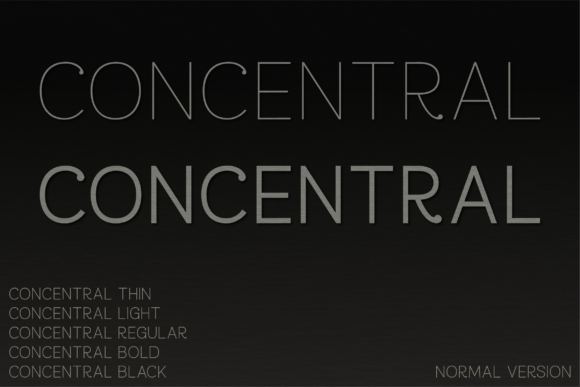
Discovering the Perfect Harmony: Concentral Font
Have you ever stared at a blank page, trying to conjure up the perfect font to match your creative vision? The struggle is real, but what if we told you that there’s a font that effortlessly blends elegance and simplicity, elevating your designs to new heights? Welcome to the world of the Concentral Font, a masterfully crafted sans serif ensemble that’s poised to revolutionize the way you approach typography.
Represented in five unique weights, the Concentral Font is an exquisite fusion of contemporary style and opulent elements, making it the perfect companion for designers seeking to create lasting impressions. Whether you’re working on a magazine, logo, or film poster, this font family has the power to amplify the charm of your project, setting it apart from the ordinary.
With the Concentral Font, you’ll unlock a world of creative possibilities, empowering your designs to radiate enduring allure and sophistication. So why wait? Harness the potential of this remarkable font today and take your designs to new and exciting heights!
Concentral Font Key Features
- Font Family: Concentral Font is a unique sans-serif font family designed to provide a clean and modern look. It includes 12 styles, ranging from Thin to Black.
- Character Set: Supports a wide range of languages, including Latin, Cyrillic, Greek, and more, making it suitable for multilingual designs.
- Unique Characteristics: Features a distinctive x-height, optimized for readability, and a subtle, yet effective, serif treatment that adds a touch of elegance.
Concentral Font Review
As a designer, I’ve had the chance to play around with Concentral Font, and here’s my honest take on it.
- The unique blend of modern and vintage elements gives Concentral Font a distinct character that’s hard to find elsewhere.
- The font is incredibly versatile, working well for both digital and print applications.
- The range of weights and styles offers endless possibilities for creating visually appealing typography.
- The font’s complexity can make it a bit tricky to use for beginners or those without extensive design experience.
- The font’s nuances may not be immediately apparent to non-designers, which could impact its effectiveness in certain contexts.
Concentral Font is a solid addition to any designer’s toolkit. Its unique character and versatility make it a great choice for those looking to add some personality to their projects. While it may have some limitations, the benefits far outweigh the drawbacks. With some practice and patience, designers of all levels can unlock the full potential of Concentral Font.
Concentral Font is ideal for:
- Designing modern and minimalist logos.
- Creating eye-catching headlines and titles.
- Adding a touch of sophistication to corporate branding.
Alternatives to Concentral Font for Designers
Concentral Font is a popular font choice among designers, but there are other alternatives that can provide unique benefits and styles. Here are a few options to consider:
Montserrat Font is a sans-serif font designed by Julieta Ulanovsky. It is known for its geometric shapes and urban feel, making it perfect for modern and minimalist designs. Compared to Concentral Font, Montserrat Font has a more geometric and modern look, while Concentral Font has a more rounded and friendly feel. Use Montserrat Font for designs that require a sleek and contemporary look.